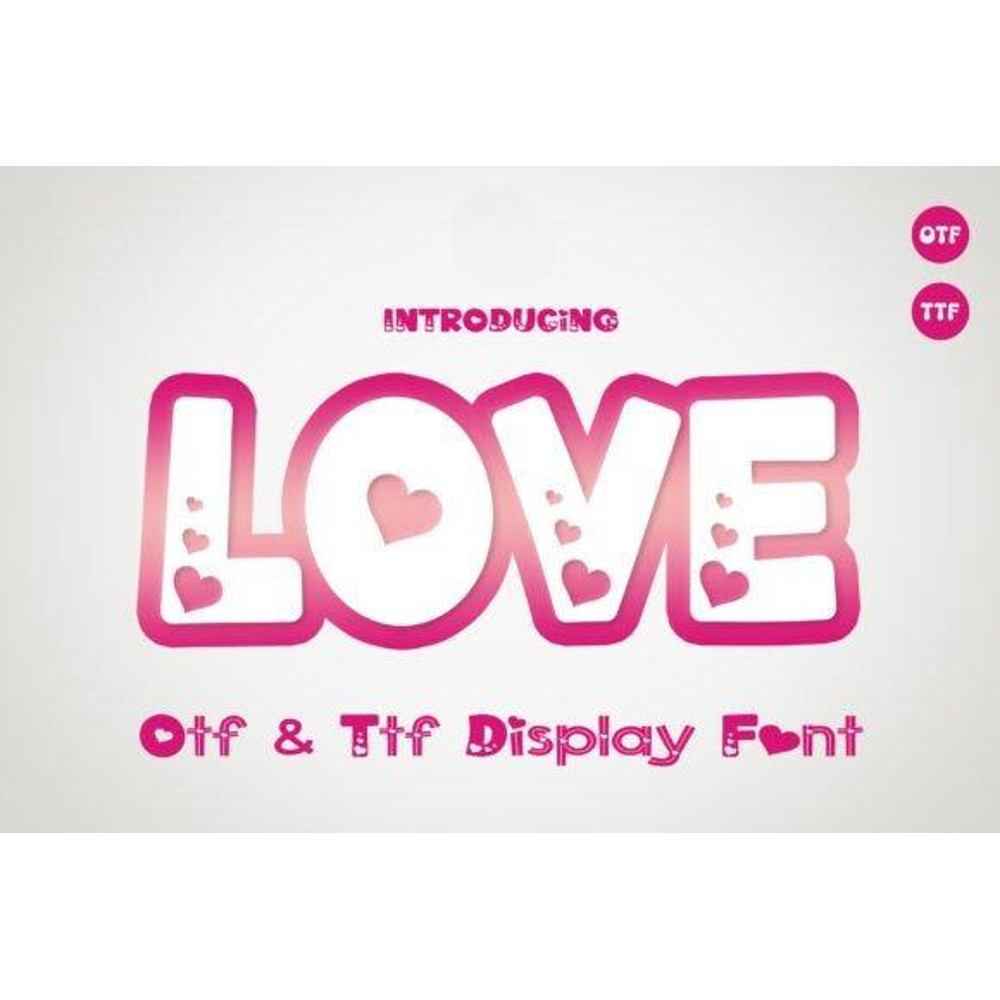
Love Font
Love is the loveliest combination of delicate and bubbly. Add this original and unique display font to your favorite creations and make them come alive.